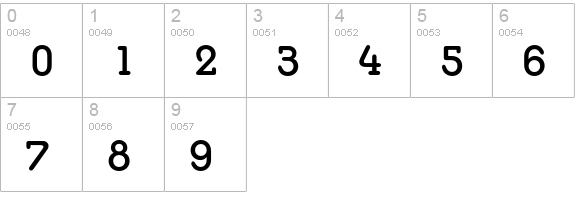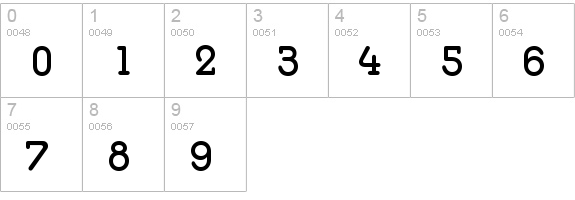
Media-Medium Font Details
Media-Medium is a balanced, medium-weight variant in the Media typeface family \xE2\x80\x94 well suited to sub-headlines, navigation, and balanced editorial work.
Media-Medium font is a versatile and modern typeface that exudes sophistication and elegance. With its clean lines and balanced letterforms, this font is perfect for a wide range of design projects, from branding to editorial design. The medium weight of the font strikes the perfect balance between readability and impact, making it suitable for both headlines and body text. What sets Media-Medium font apart is that it is not only stylish and functional but also free to download. Yes, you read that right - this high-quality font is freely available for download at FontsMarket.com. Whether you're a seasoned designer looking for a new go-to font or a beginner exploring typography for the first time, Media-Medium font is a fantastic choice that won't cost you a penny. Download it today and elevate your design projects with this versatile and modern typeface.